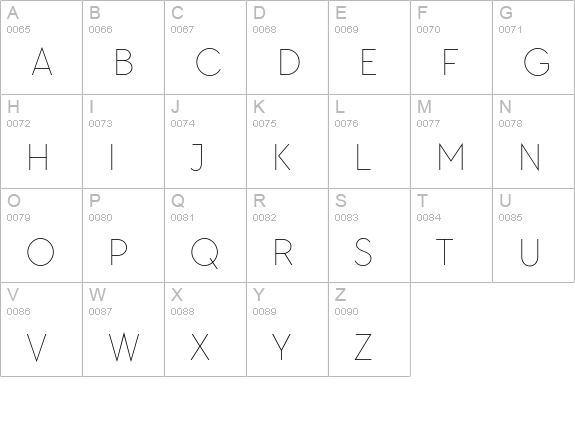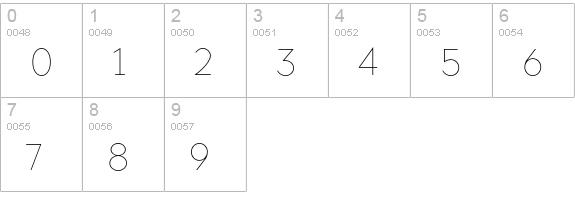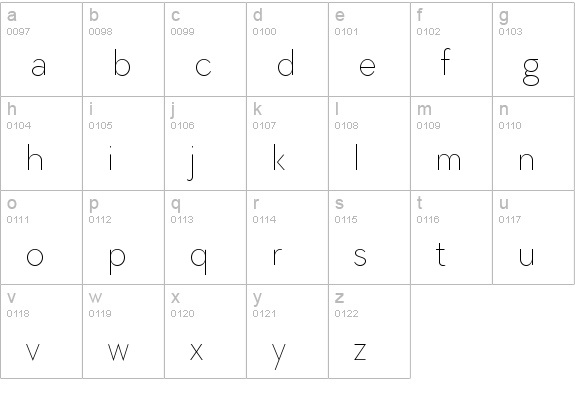
TT Chocolates Thin Font Details
TT Chocolates Thin is a delicate, low-contrast variant in the TT typeface family \xE2\x80\x94 well suited to fashion editorial, minimal branding, and high-contrast display.
TT Chocolates Thin is a sleek and modern sans-serif font that exudes elegance and sophistication. With its thin lines and delicate curves, this font is perfect for adding a touch of refinement to any design project. Whether you're creating a logo, brochure, or website, TT Chocolates Thin will bring a sense of style and flair to your work. Best of all, TT Chocolates Thin is available for free download at FontsMarket.com. This means you can easily access this stunning font and start using it in your projects right away. Don't miss out on the opportunity to enhance your designs with the timeless beauty of TT Chocolates Thin. Download it for free today and elevate your creations to new heights.